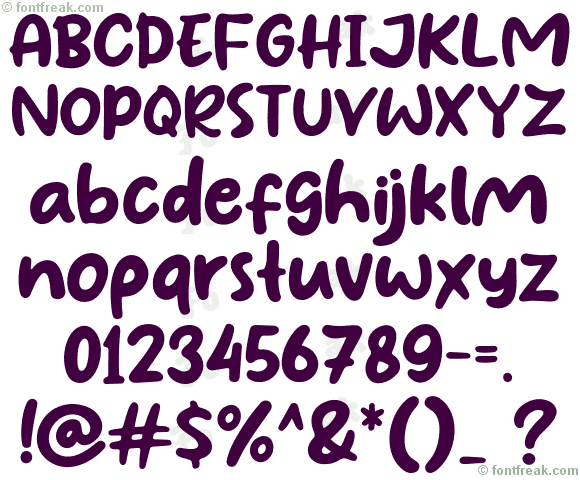
Love Amour Blank
About Love Amour Blank
The "Love Amour Blank" font by Syaf Rizal beautifully embodies the essence of love and creativity. This font belongs to the decorative category, showcasing a playful and whimsical style that immediately captures attention. Its unique design features bold, rounded letterforms with a slightly uneven stroke weight, giving it a hand-drawn appearance that adds warmth and personality to any project. The spacing is well-balanced, enhancing readability while maintaining an artistic flair.
With its charming aesthetic, "Love Amour Blank" is perfect for a variety of applications. It shines in wedding invitations, where its romantic undertones can set the tone for the celebration. Additionally, it works wonderfully for greeting cards, allowing designers to convey heartfelt messages in an engaging manner. Restaurant menus can also benefit from its inviting style, making dishes appear more appealing. The font is suitable for social media graphics and content creation, enabling influencers and small business owners to craft visually striking posts that resonate with their audience.
Targeted primarily at graphic designers, small business owners, and content creators, "Love Amour Blank" offers a versatile option for those looking to infuse their work with a sense of joy and warmth. The font’s freeware license allows for easy access, making it an attractive choice for budget-conscious creatives seeking quality typography.
What sets the "Love Amour Blank" font apart is its ability to blend artistic charm with functionality. Its distinctive character allows it to stand out in a sea of generic typefaces, making it a memorable choice for any project. For those interested, the "Love Amour Blank font free download" provides an excellent opportunity to explore its unique features and enhance design work with a touch of love.